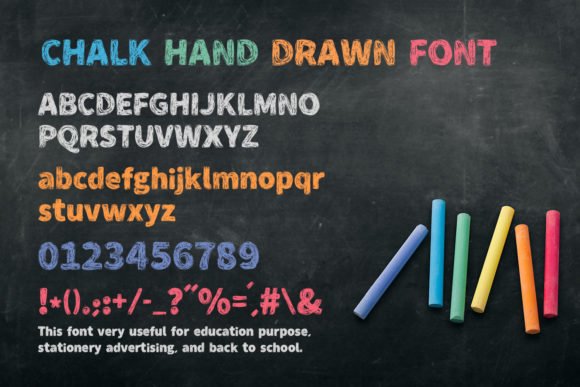
Bringing Memories to Life with Chalk Font
Do you remember scribbling on the sidewalk with chalk as a child, creating intricate designs and patterns that seemed to bring the world to life? Those carefree moments of creativity can be just as inspiring for designers today. Whether you’re working on a project that requires a playful, whimsical touch or a nostalgic school-themed design, Chalk Font is the perfect tool to help you achieve that look.
Chalk Hand Drawn is a versatile sketch display font that’s specifically designed for chalk writing. Its unique characteristics make it an ideal choice for school-themed projects, from educational materials to event invitations. As a designer, you’ll appreciate the value of Chalk Font in adding a personal touch to your work, while also conveying a sense of playfulness and approachability.
Chalk Font Key Features
- Unique Characteristics: Chalk Font features a distressed, hand-drawn look with subtle imperfections, giving it a charming and organic feel.
- Legibility: Despite its distressed appearance, Chalk Font is highly legible, making it suitable for a wide range of applications, from body text to headlines.
- Style Variations: Chalk Font comes with multiple style variations, including bold, italic, and regular, allowing users to add depth and variety to their designs.
- Language Support: Chalk Font supports a wide range of languages, including Latin, Cyrillic, and Greek, making it a versatile choice for designers and typographers.
Designer Review: Chalk Font
Chalk Font is a beautiful and unique typeface that’s perfect for adding a touch of whimsy to your designs. ✨ The font’s distressed, handwritten feel is reminiscent of old chalkboard scribbles, making it a great choice for educational or nostalgic-themed projects.
The font’s versatility is also a major selling point. ✨ It works well in both digital and print applications, and can be used for a wide range of purposes, from titles and headings to body text and quotes.
- Distressed, handwritten feel
- Supports a wide range of languages
While Chalk Font is a great choice for many projects, there are some limitations to be aware of: ⚠️ The font’s distressed look can sometimes be difficult to read, particularly in smaller sizes or in certain contexts. Additionally, the font’s customization options can be overwhelming for beginners.
Overall, I think Chalk Font is a great addition to any designer’s toolkit. While it may not be the best choice for every project, it’s a versatile and unique typeface that’s sure to add some visual interest to your designs.
Tips for Getting the Most Out of Chalk Font
- Combine Chalk Font with other fonts to create a visually appealing contrast.
- Use Chalk Font for titles, headings, and emphasis to draw attention to important information.
Chalk Font is commonly used for:
- Designing educational materials, such as worksheets and presentations.
- Creating event invitations